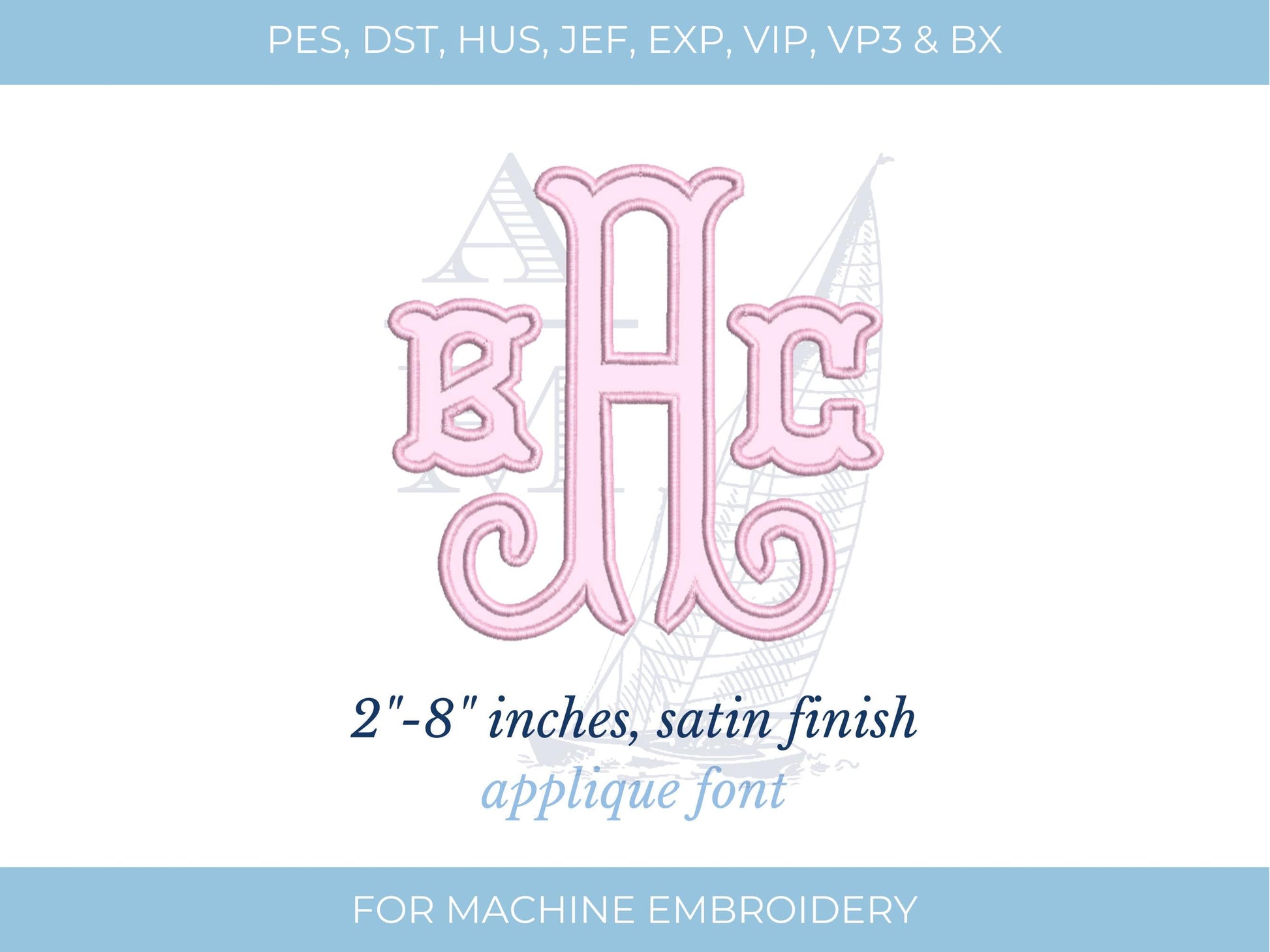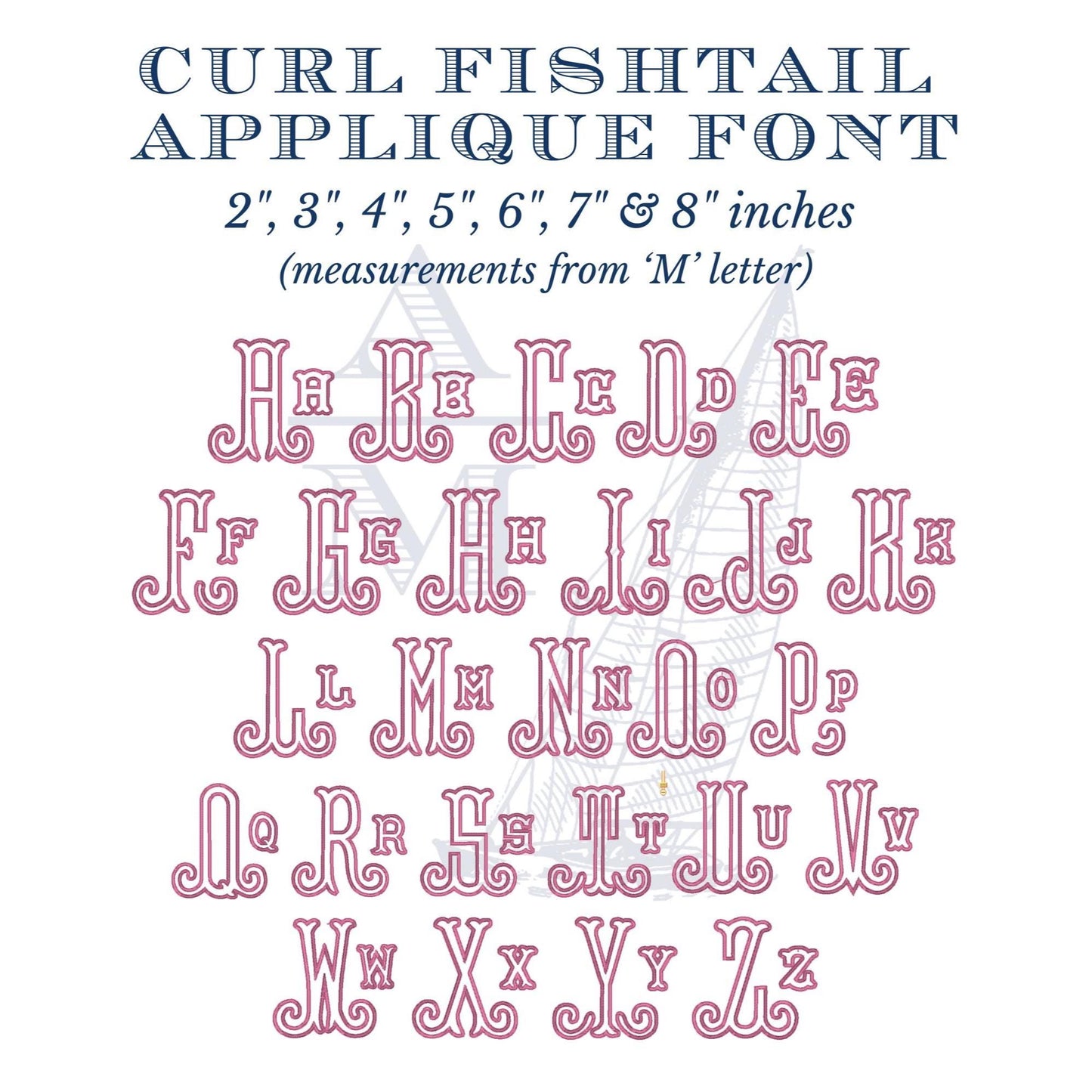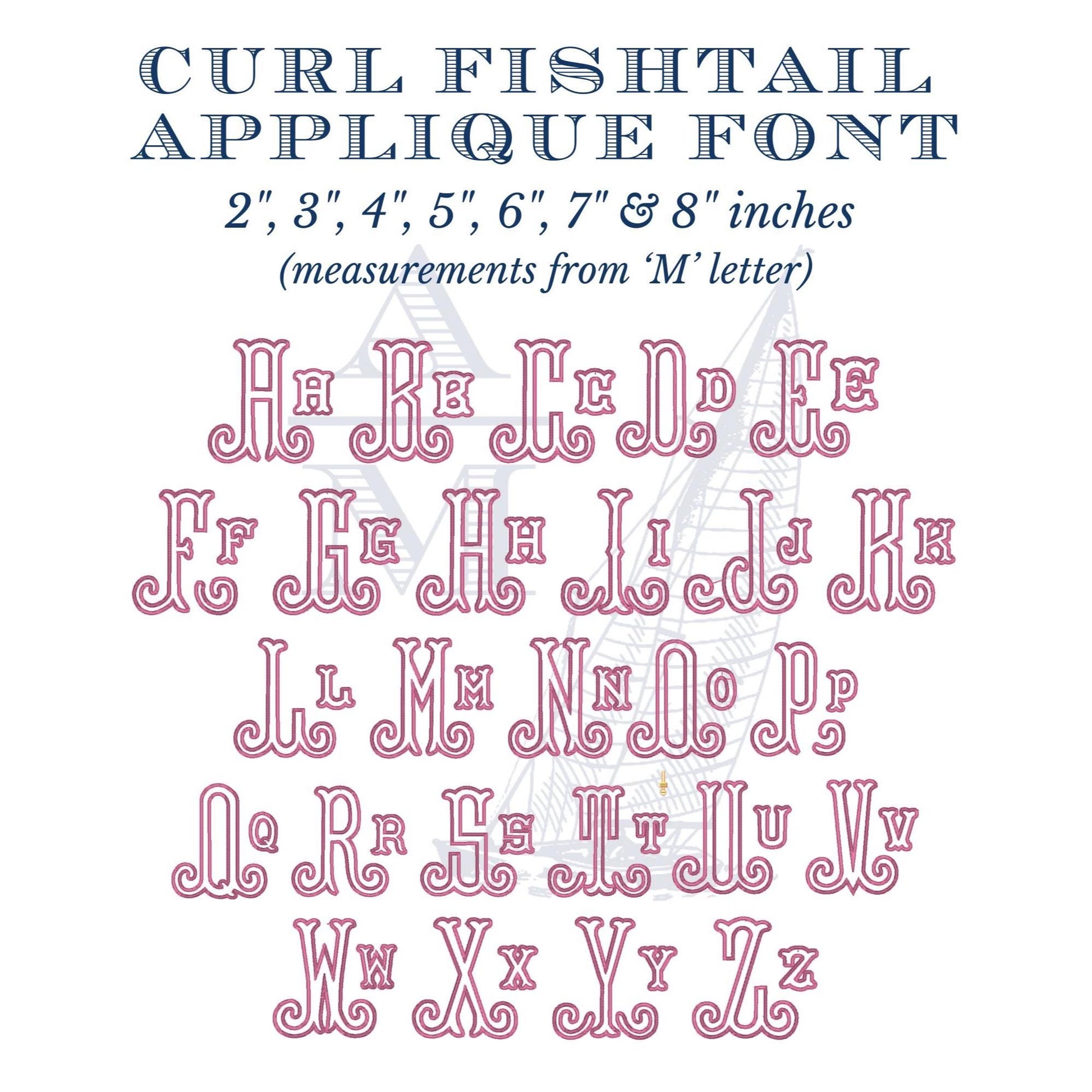
Curl Fishtail Applique Font for Machine Embroidery, Digital File, 2"-8" Tall, Monogram Satin Finish, BX Included
Create beautiful, personalized projects with our Curl Fishtail Applique Font for Machine Embroidery! This versatile digital file features a charming, monogram satin stitch finish design that measures between 2 inches and 8 inches tall, making it perfect for a variety of embroidery projects—from baby gifts and apparel to home décor and accessories. If you have been looking for a satin finish Arabesque monogram applique font, you have found it!
Key features:
- Perfect for creating monograms, initials, and personalized embellishments
- Clear, satin finish applique style with a curled fishtail design
Whether you‘re a seasoned embroidery enthusiast or just starting out, this Curl Fishtail Applique Font will add a touch of charm and sophistication to your handcrafted creations. Bring your creative ideas to life today!